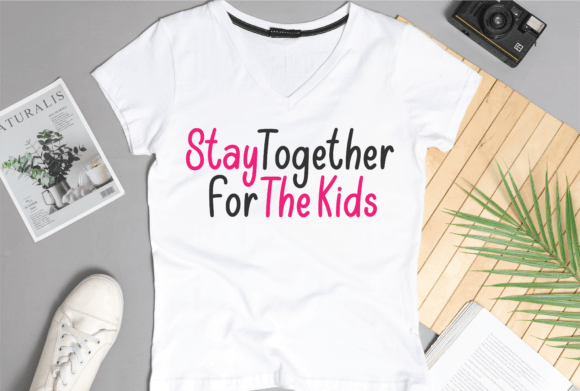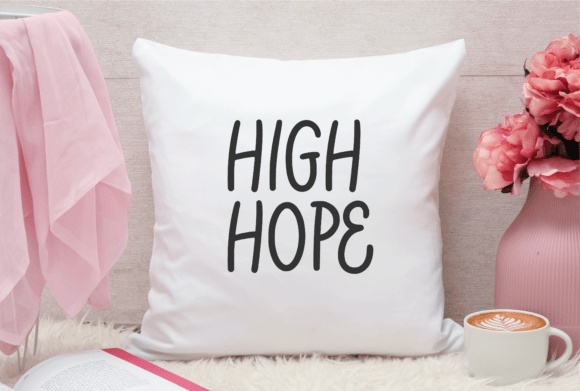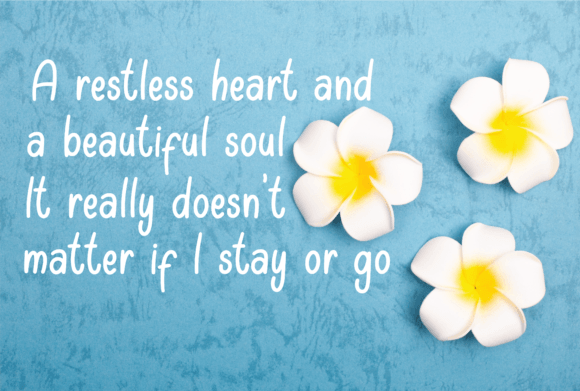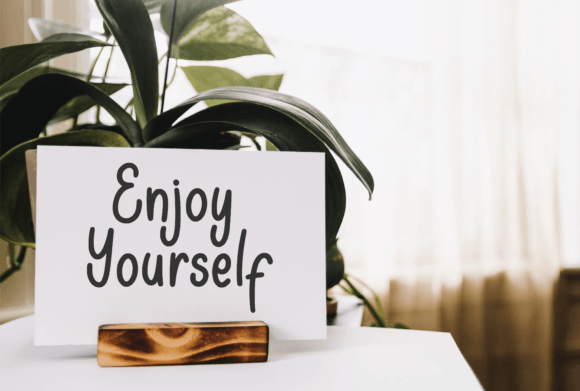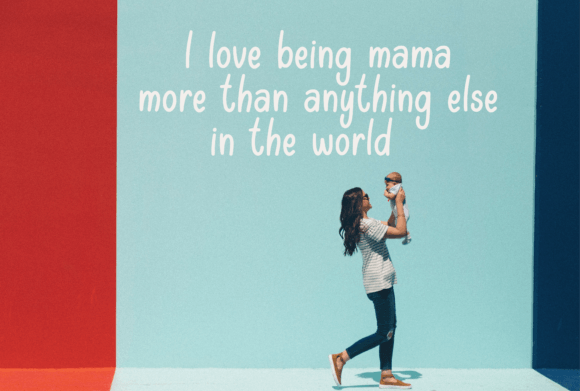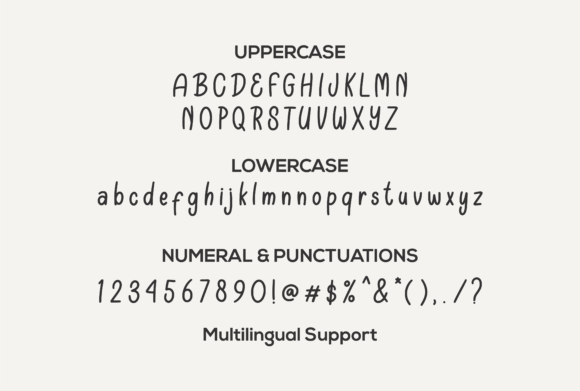
The Joy of Flanella Time Font: A Designer’s New Best Friend
I’ll never forget the time I was working on a project for a children’s birthday party, and I just couldn’t find the right font to bring the design to life. The client wanted something playful, friendly, and fun, but everything I tried seemed either too boring or too over-the-top. That’s when I stumbled upon Flanella Time Font, and let me tell you, it was love at first sight! 💕
An Honest Review of Flanella Time Font
So, what makes Flanella Time Font so special? Here are a few things I love about it:
- ✨ It’s incredibly playful and childish, making it perfect for designs that need a fun twist.
- ✅ The friendliness it conveys is impeccable – it’s like a warm hug for your design.
- 💫 It’s versatile and can be used for a variety of projects, from crafts and digital design to presentations and greeting cards.
Of course, no font is perfect, and Flanella Time Font has a few small quirks:
- 🤔 Some users might find the font a bit too playful or over-the-top for certain projects.
- ⚠️ It may not be the best choice for body text or long blocks of text, as it’s primarily designed for display purposes.
The Backstory of Flanella Time Font
According to the font’s creators, Flanella Time Font was inspired by the nostalgia of childhood memories. They wanted to create a font that would evoke feelings of warmth, comfort, and playfulness. And I think they succeeded! 🌟
Here are a few questions I’ve encountered while working with Flanella Time Font:
- Q: Is Flanella Time Font suitable for body text?
- A: While it’s technically possible, Flanella Time Font is primarily designed for display purposes, so it’s best used for headlines, titles, or short paragraphs.